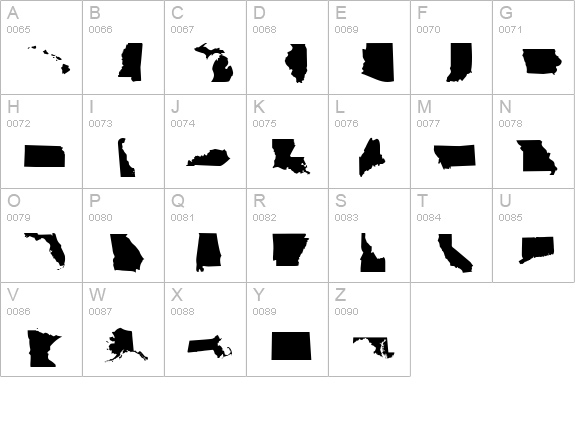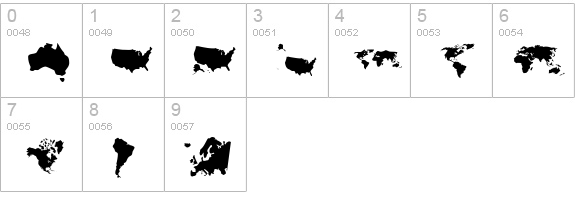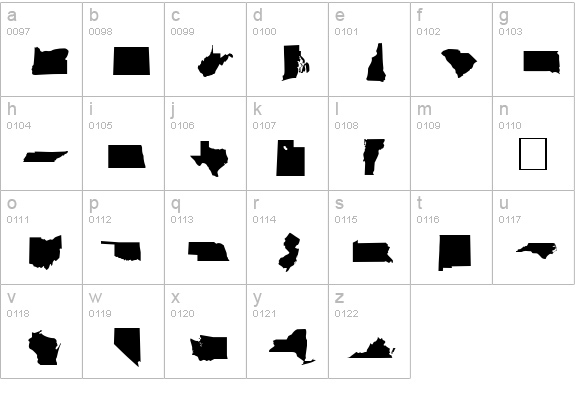
DingMaps Font Details
Introducing DingMaps font, a unique and versatile typeface that is sure to add a touch of creativity to any design project. This font features a collection of whimsical icons and symbols that are perfect for creating eye-catching graphics, signage, and more. With its playful yet sophisticated style, DingMaps font is the perfect choice for anyone looking to add a bit of fun and flair to their designs. The best part? DingMaps font is completely free to download at FontsMarket.com. That's right, you can access this fantastic font at no cost and start using it in your projects right away. Whether you're working on a professional branding project or a personal creative endeavor, DingMaps font is sure to become your go-to choice for adding a touch of personality and charm. Don't miss out on the opportunity to enhance your designs with the delightful DingMaps font. Download it today and let your creativity soar!